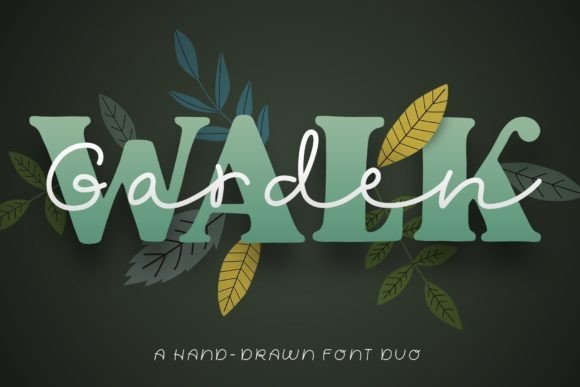
Introduction to Garden Walk Font
Garden Walk Font Duo combines a thin, monoline script with a bold, stylized serif.
This dynamic combination is perfect for logos and branding, or they can be used on their own for a subtler style .